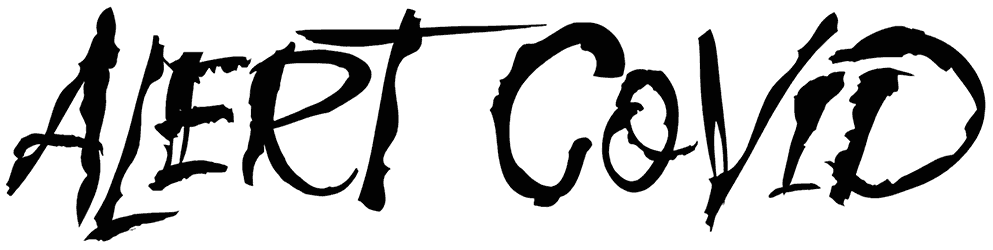
Alert Covid Font
If the quality of your graffiti, stickers, video game posters, or movie brochures is too high, ignoring them becomes tough for the audience, and in this regard, the chance of your success will increase via this grunge font.
To achieve this goal, you require an all-caps zombie font, the same as Alert Covid, that comes with crooked and imbalanced characters. Due to its quirky style, it carries a vibe of dread, excitement, and smudgy.